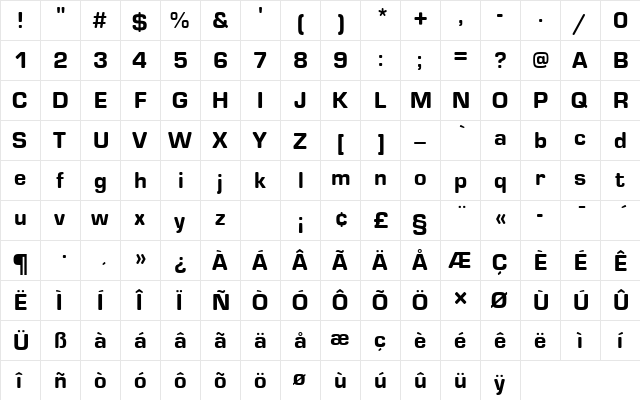
EurostileTHeaRo1 Regular
EurostileTHeaRo1 offers clean, dependable letterforms without strong stylistic allegiance, making it a practical choice for designers who need flexibility.